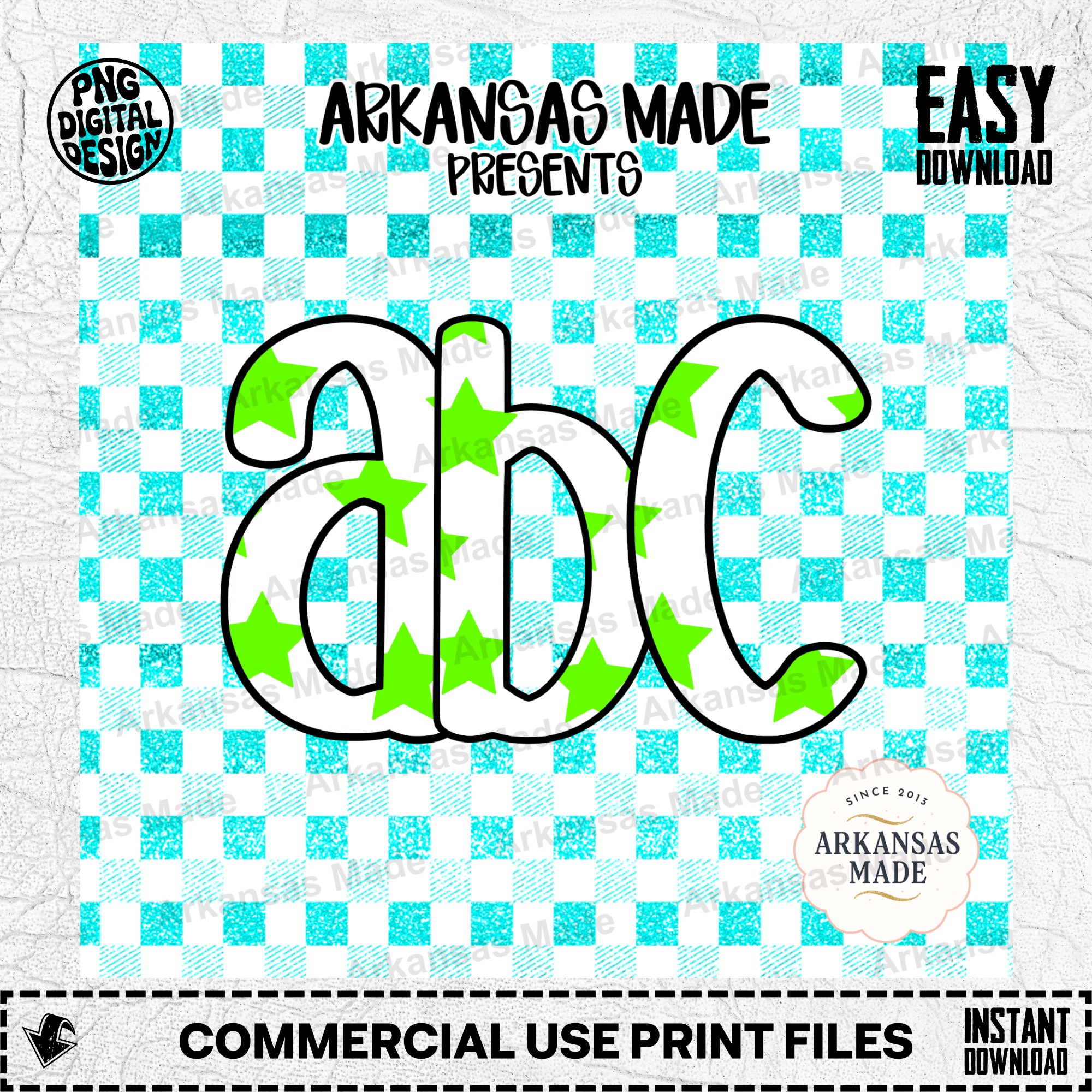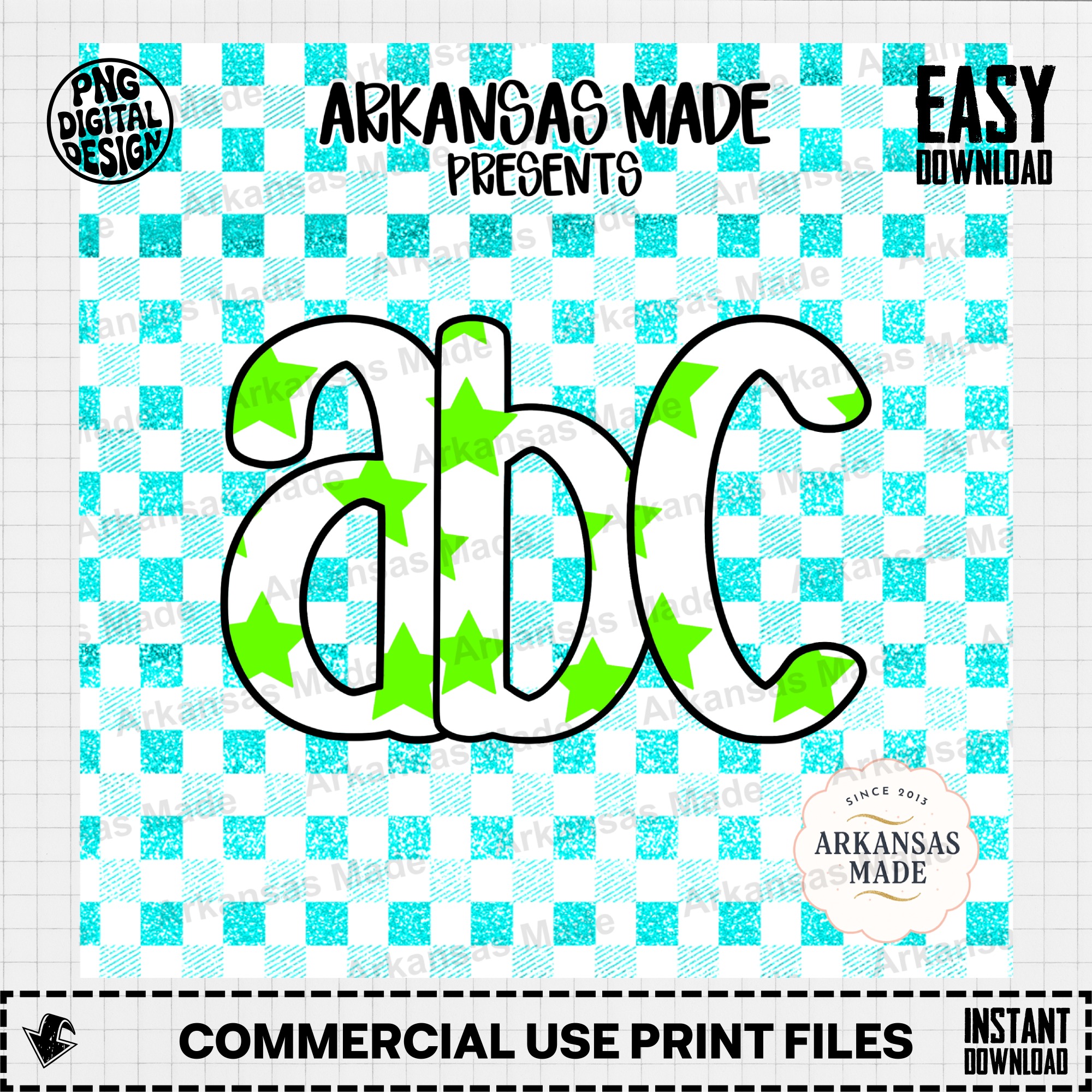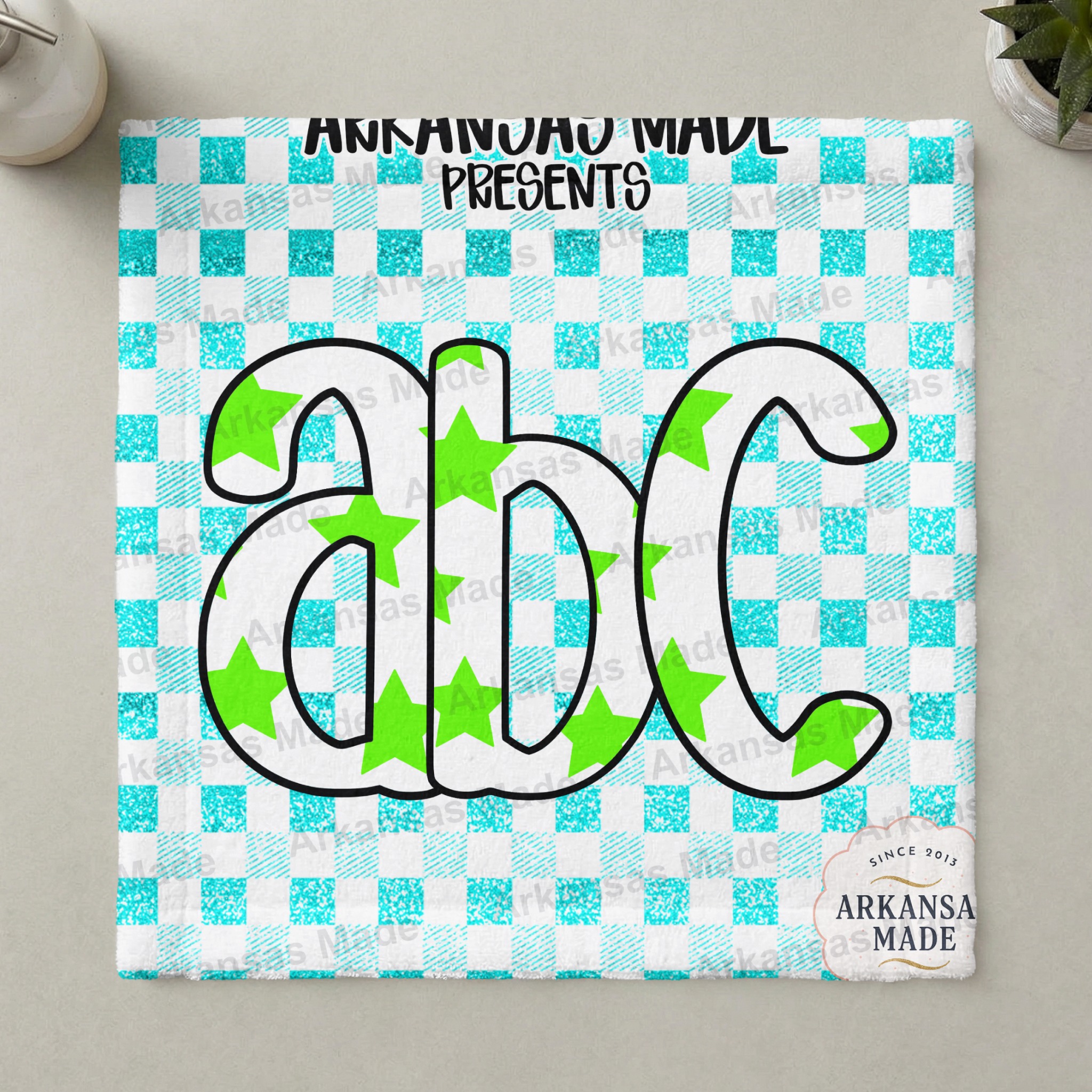
Digital Download Alpha Set, Neon Green Star Letters, Aqua Glitter Gingham Alphabet PNG, Kids Party Decor, Crafting Font, Sublimation
Instantly elevate your projects with this vibrant Digital Download Alpha Set, featuring playful neon green stars and a trendy aqua glitter gingham alphabet PNG. This fun and funky design is perfect for adding a touch of whimsy to kids’ party decor, nursery art, or classroom printables. Ideal for crafters, parents, and teachers, it’s great for creating personalized gifts, birthday banners, and unique sublimation designs. Its bright colors and cheerful vibe make every creation special.